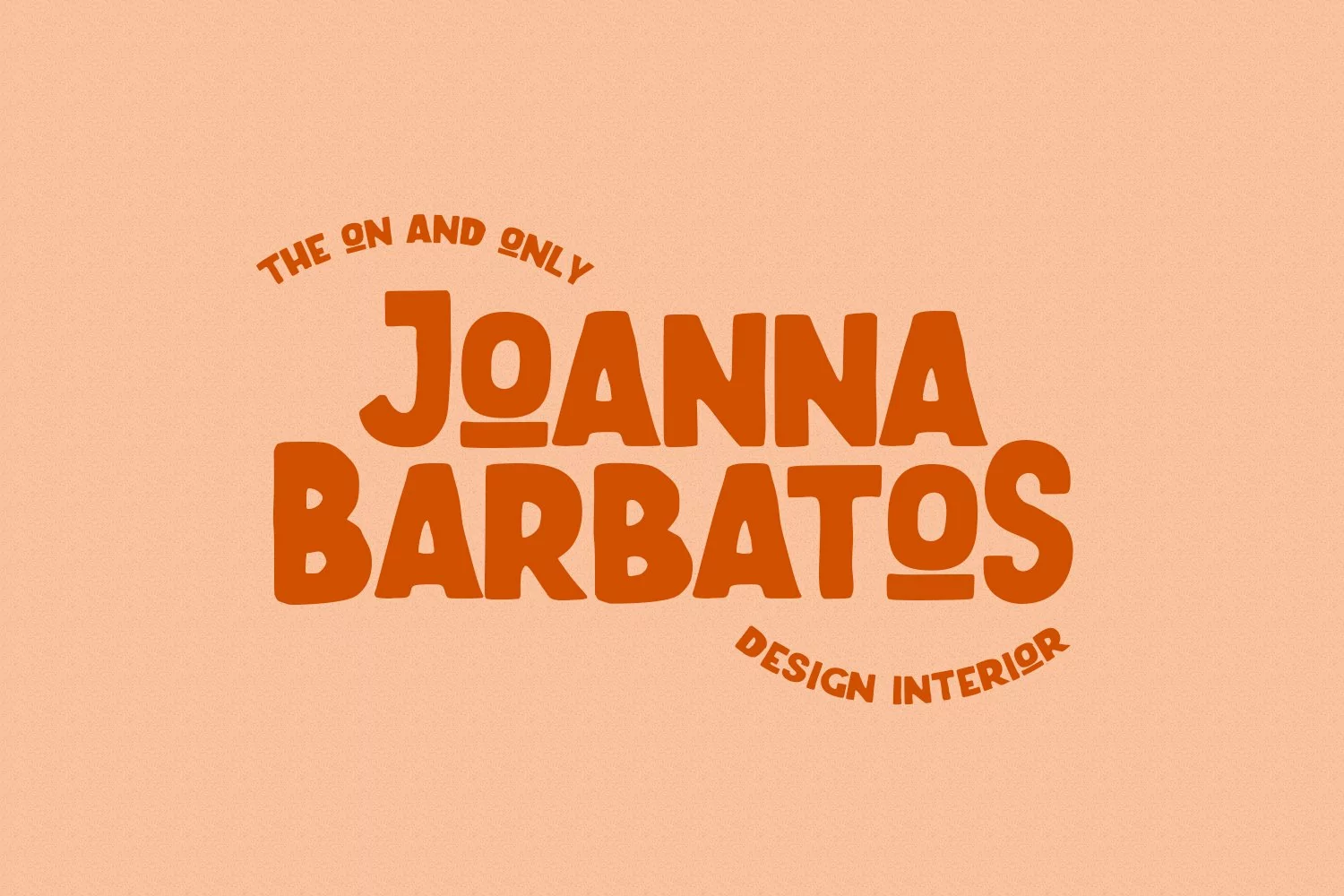
The Junos is a handwritten display sans font. With a bold stroke, rough and fun character with a bit of ligatures. To give you an extra creative work. The Junos font support multilingual more than 100+ language. This font is good for logo design, Social media, Movie Titles, Books Titles, a short text even a long text letter and good for your secondary text font with script or signature font. Make a stunning work with The Junos font.